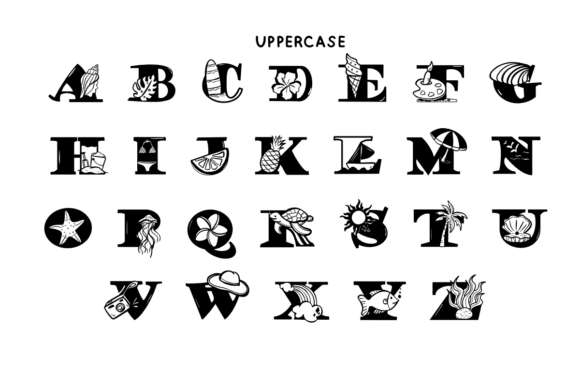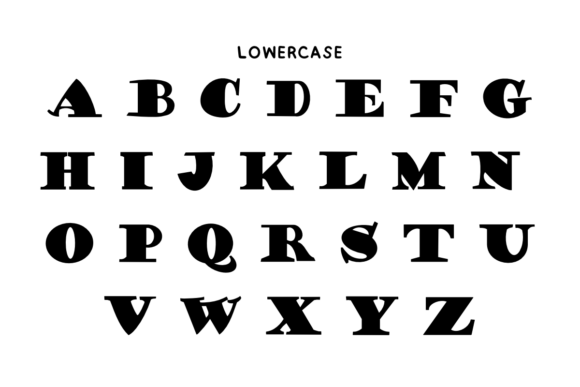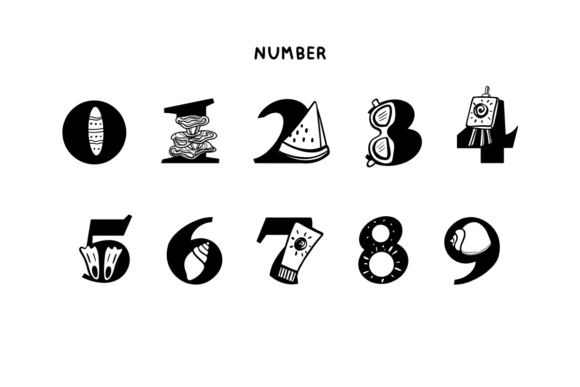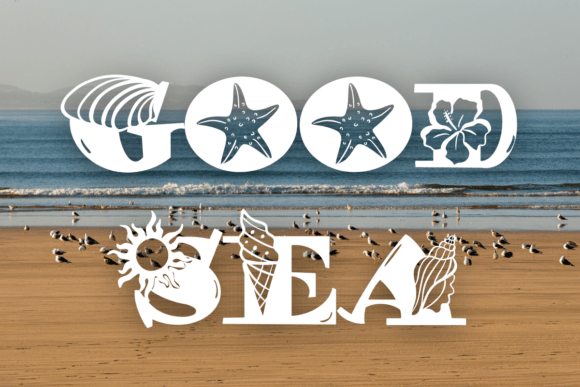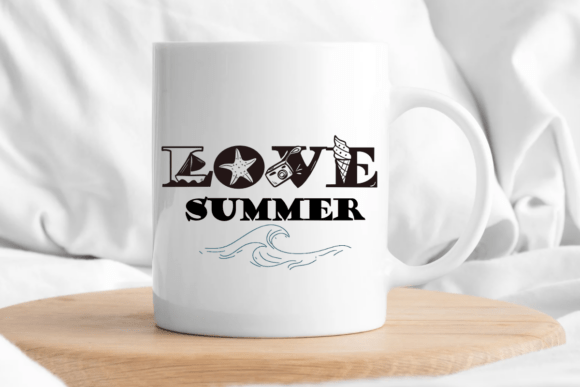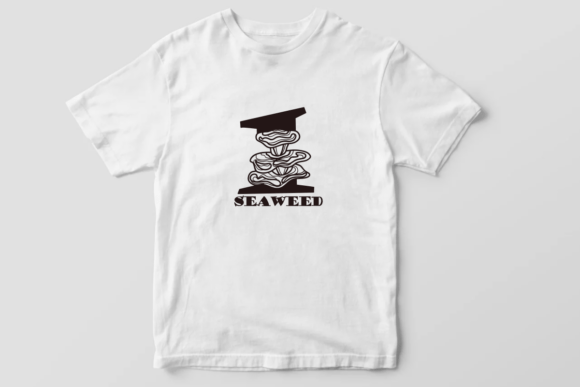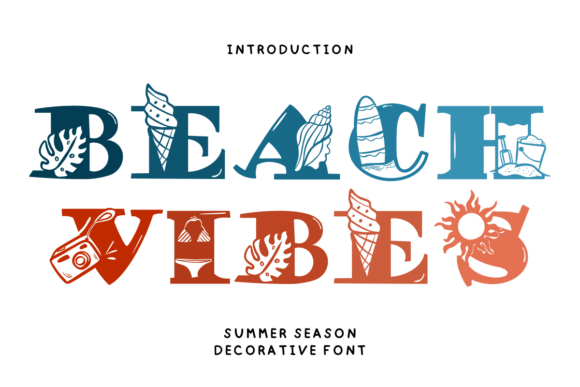
Introducing Beach Vibes Font: The Ultimate Summer Decorative Font
Are you looking for a font that captures the essence of summer and the beach? Look no further than Beach Vibes Font, a playful decorative font that’s bursting with summer charm. This delightful font is perfect for designers and crafters who want to add a touch of coastal fun to their projects.
What Makes Beach Vibes Font So Special?
Beach Vibes Font is a unique and eye-catching font that’s adorned with ocean-themed elements like seashells, waves, and tropical leaves. Each letter is carefully crafted to evoke the feeling of a beach vacation, making it ideal for beach party invitations, summer merchandise, and travel blog headers. Whether you’re designing a project for a client or creating something for personal use, Beach Vibes Font is sure to bring a smile to anyone’s face.
Perfect for Beach-Themed Projects
Beach Vibes Font is perfect for a wide range of beach-themed projects, including:
- Beach party invitations: Create eye-catching invitations that set the tone for a fun and festive beach party.
- Summer merchandise: Add a touch of summer charm to your merchandise, such as t-shirts, hats, and tote bags.
- Travel blog headers: Create engaging and informative headers for your travel blog that evoke the feeling of a beach vacation.
- Beach-themed crafts: Use Beach Vibes Font to add a personal touch to your beach-themed crafts, such as seashell wind chimes or driftwood art.
Key Features of Beach Vibes Font
Here are some of the key features that make Beach Vibes Font so special:
- Playful and decorative: Beach Vibes Font is a playful and decorative font that’s perfect for adding a touch of summer charm to your projects.
- Ocean-themed elements: Each letter is adorned with ocean-themed elements like seashells, waves, and tropical leaves.
- Unique and eye-catching: Beach Vibes Font is a unique and eye-catching font that’s sure to stand out in any project.
Tips for Using Beach Vibes Font
Here are some tips for using Beach Vibes Font in your projects:
- Use it sparingly: Beach Vibes Font is a decorative font that’s best used sparingly. Use it for headings or titles to add a touch of summer charm to your project.
- Pair it with a simple font: Pair Beach Vibes Font with a simple font to create a striking contrast and add visual interest to your project.
- Experiment with colors: Beach Vibes Font looks great in bright and bold colors that evoke the feeling of the beach. Experiment with different colors to find the perfect combination for your project.